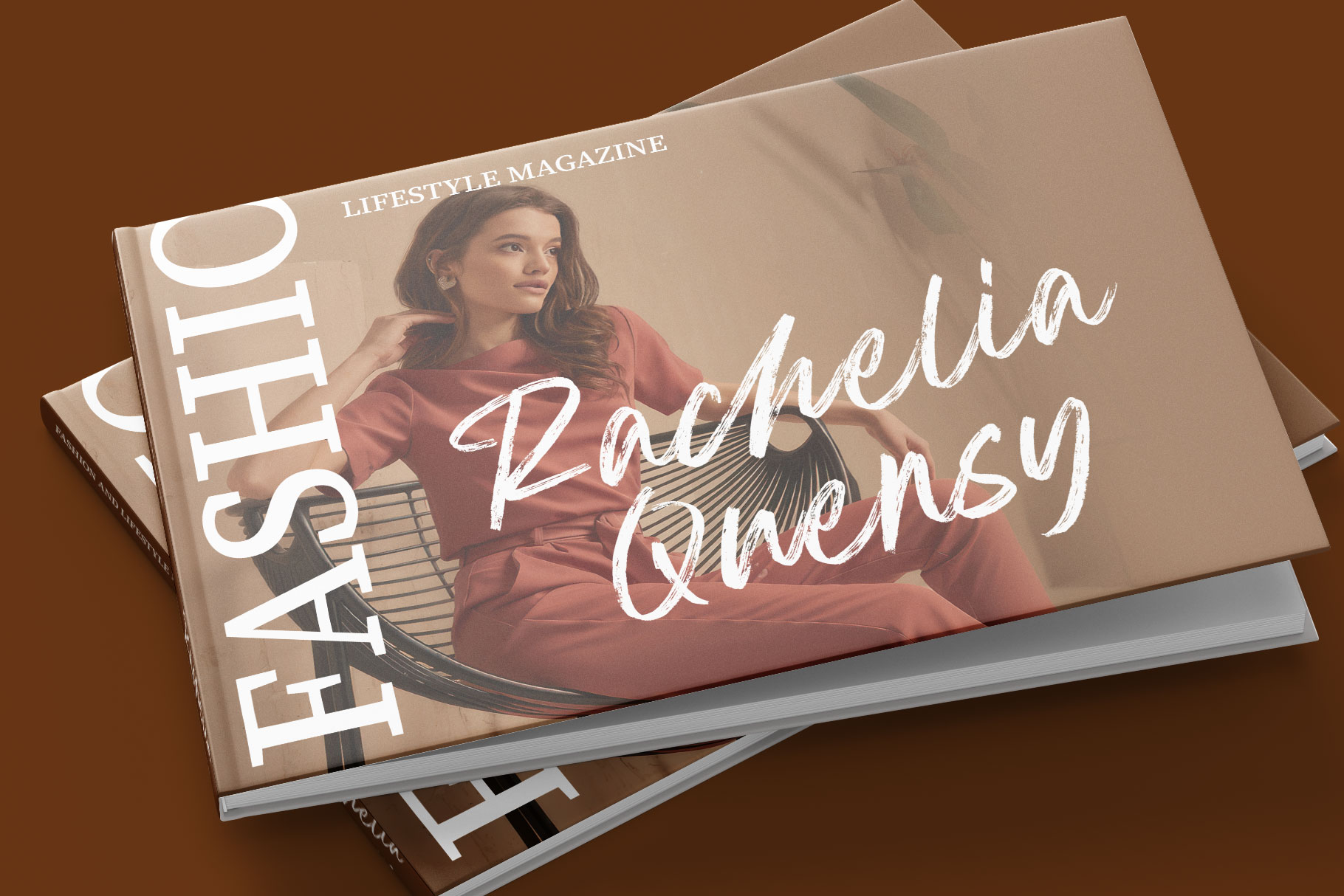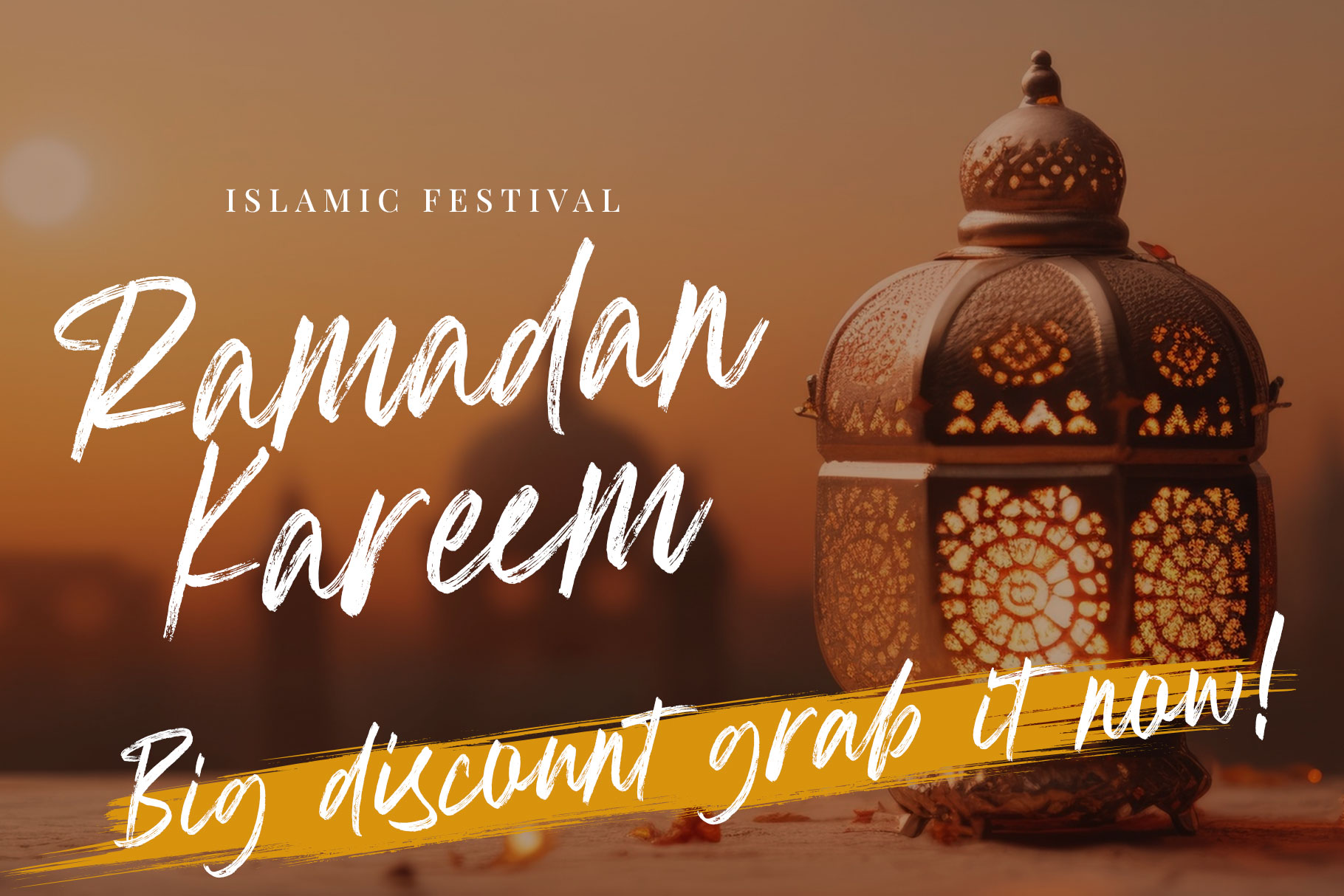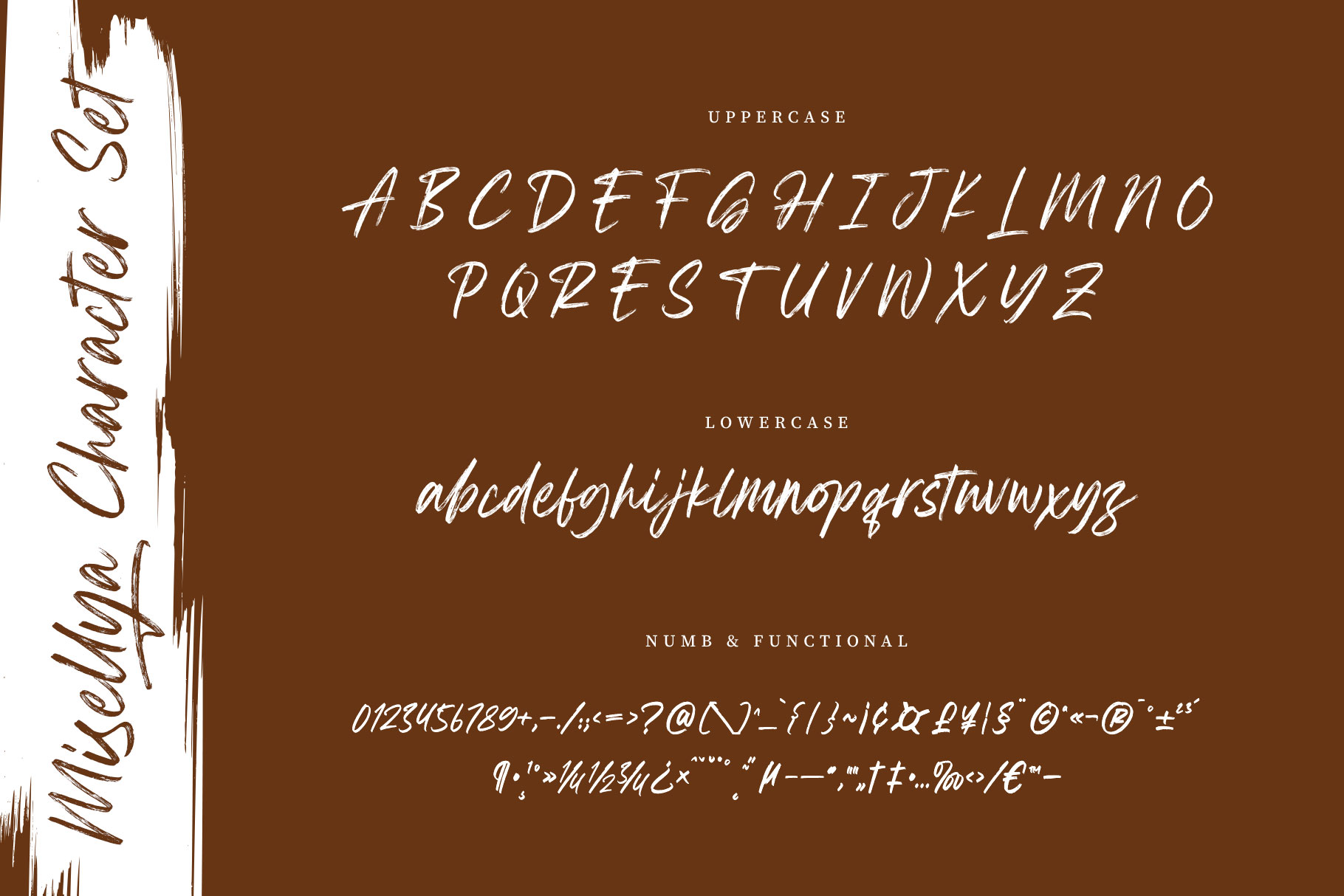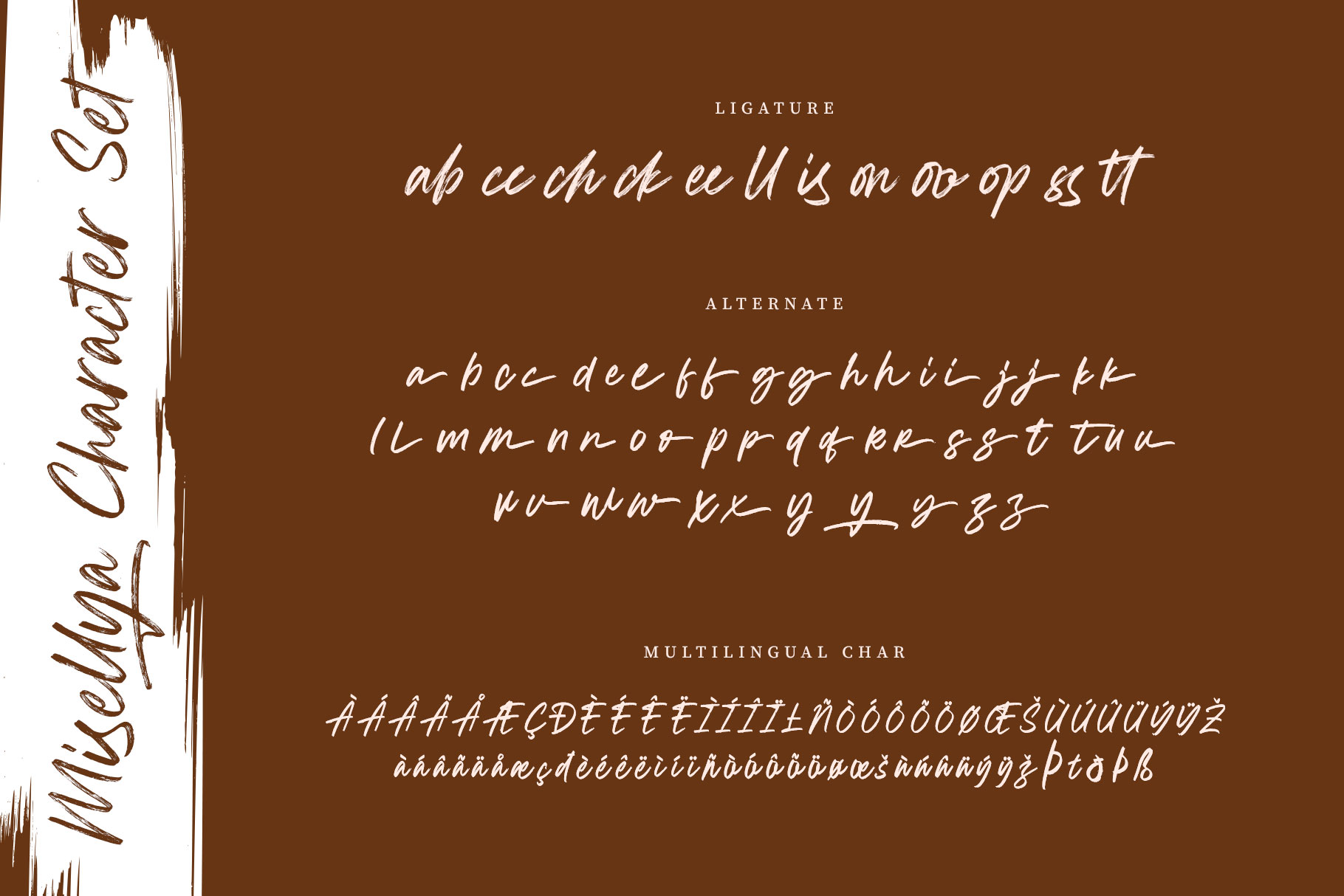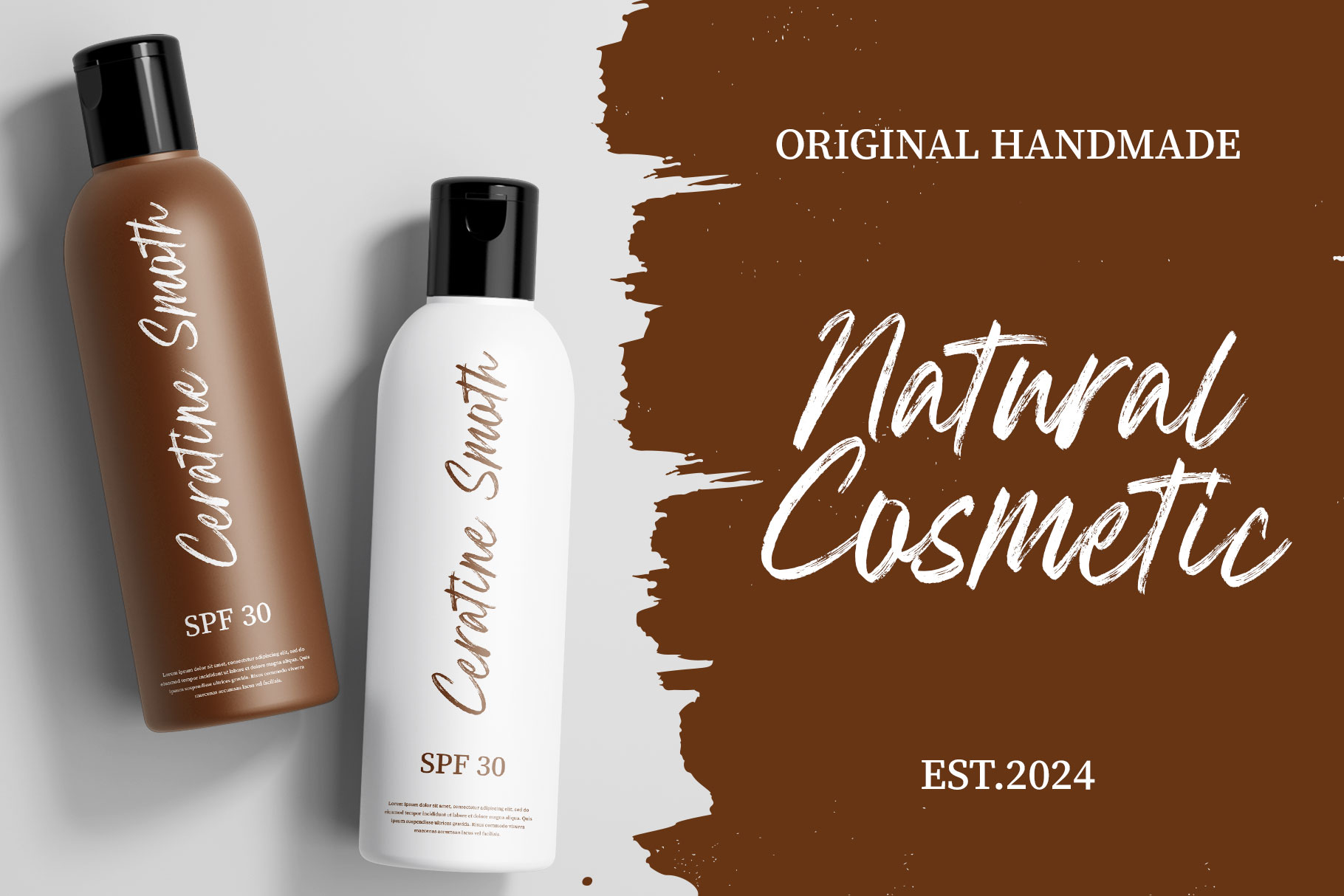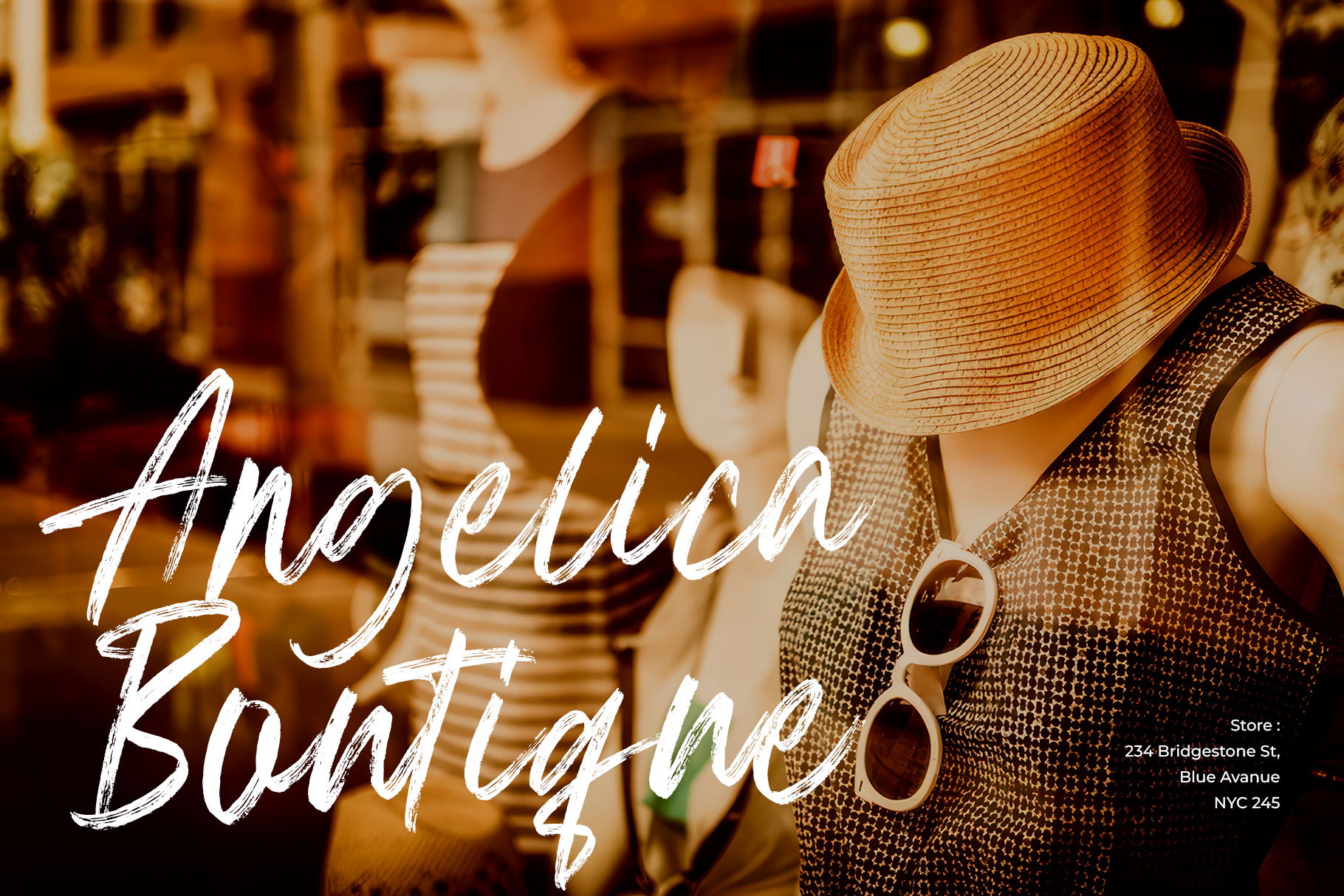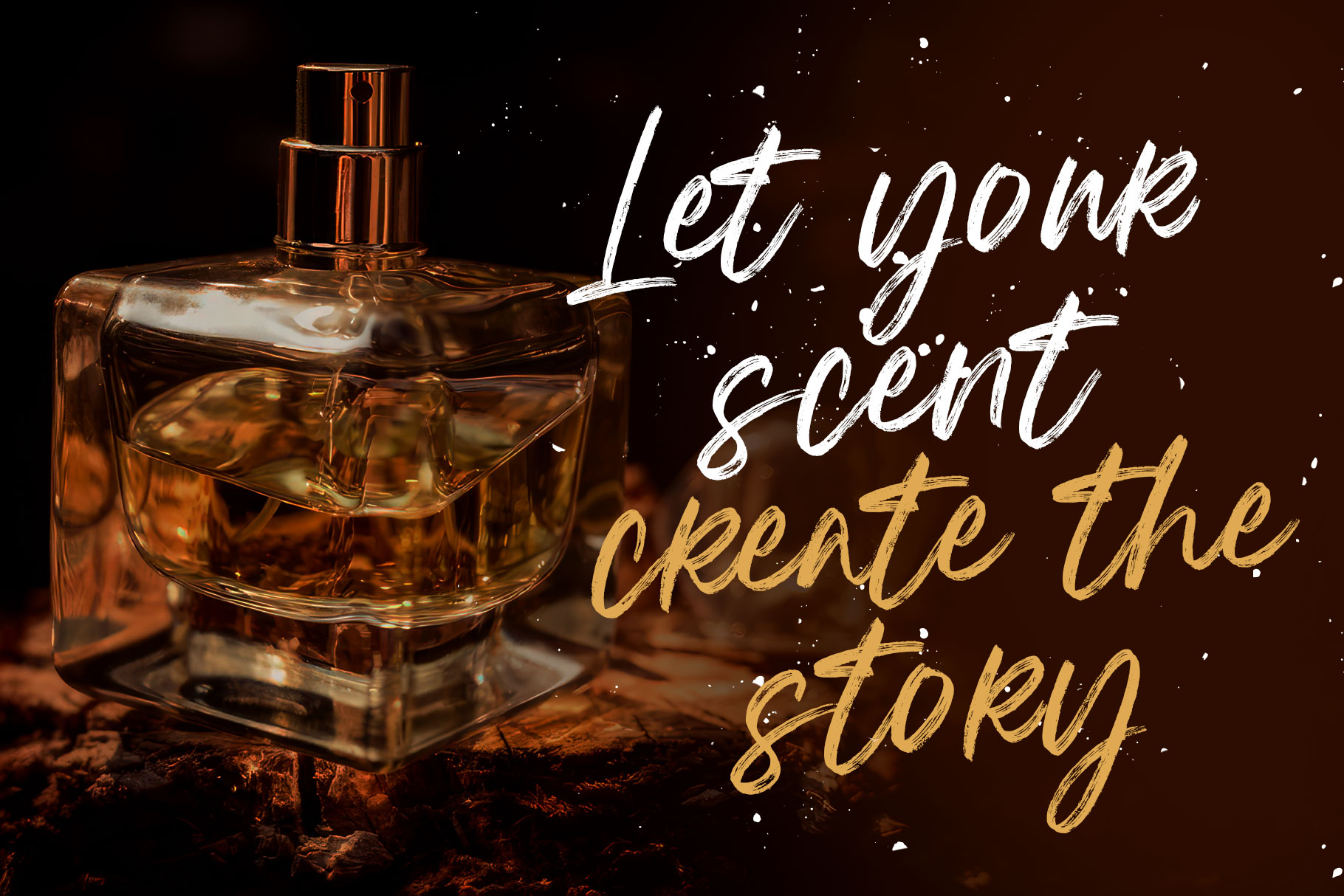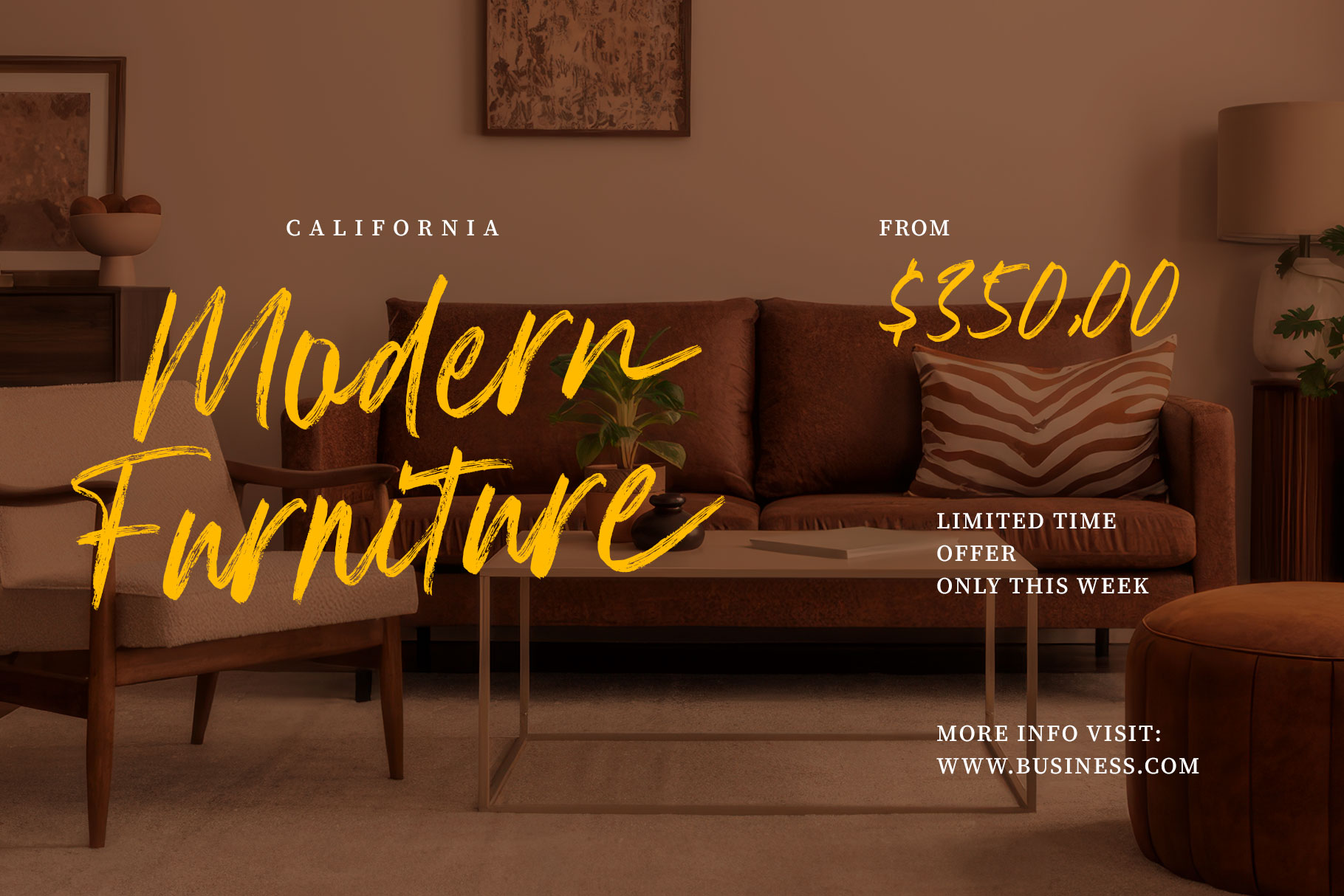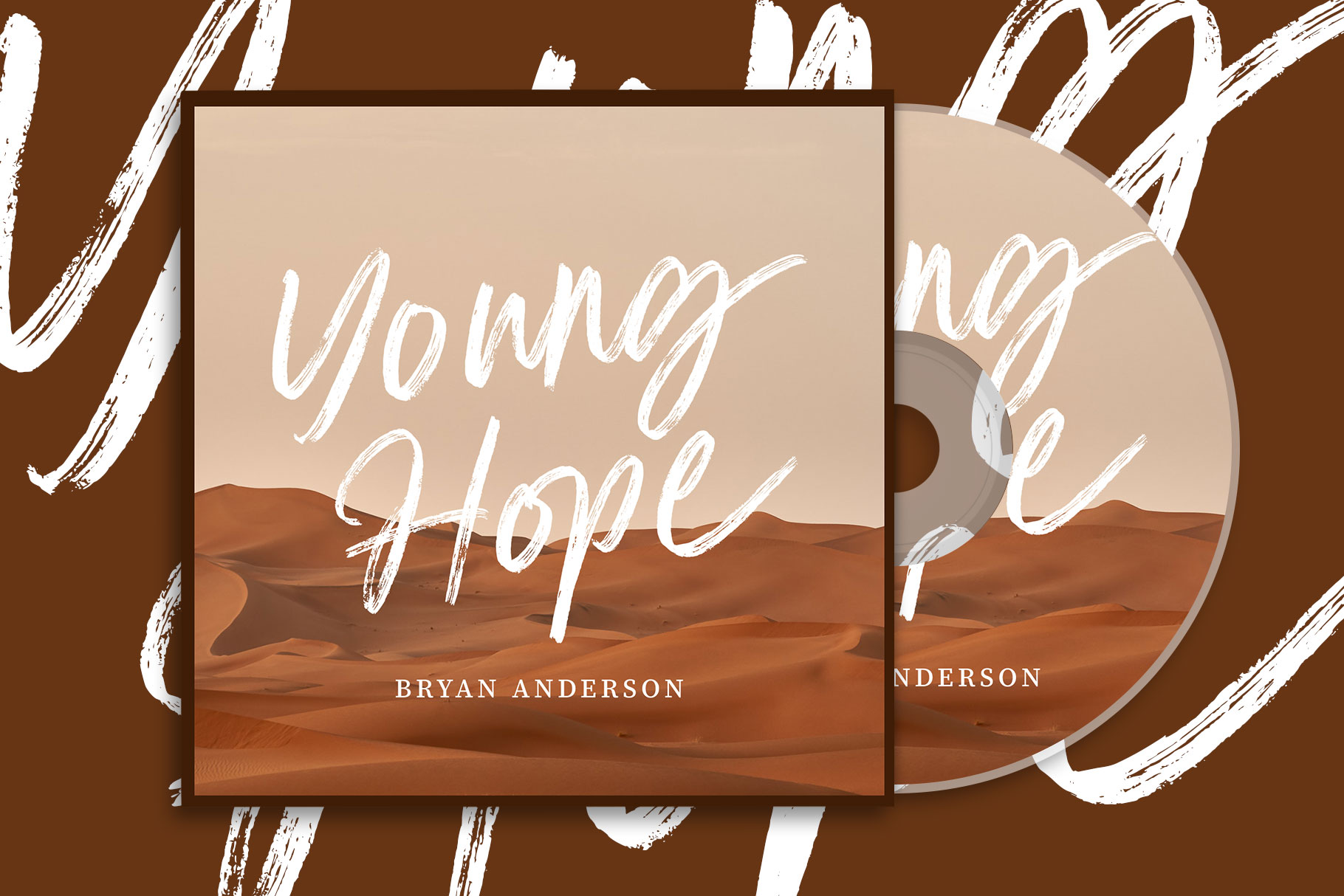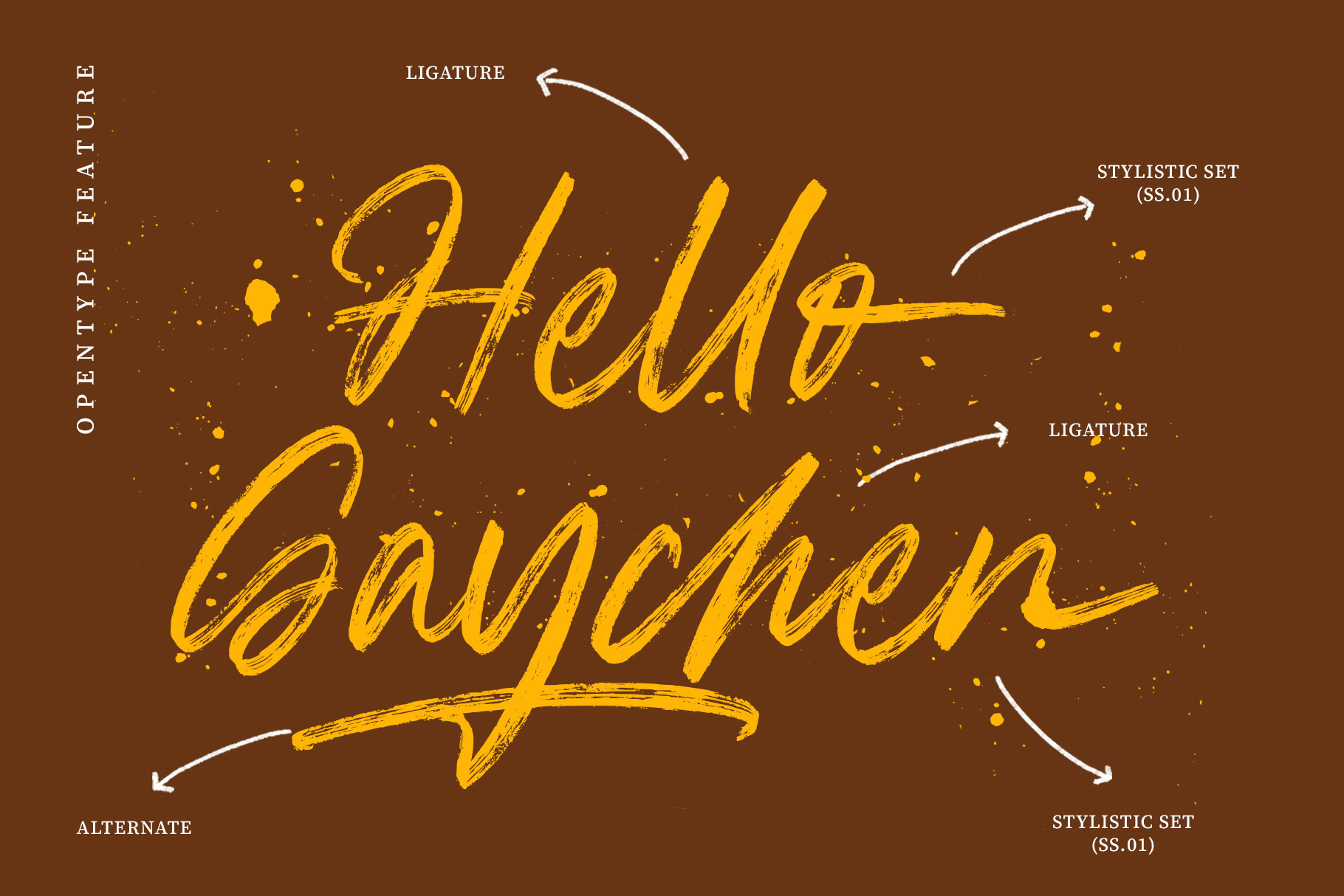
Misellya Brush Script Font
Misellya is brush script font with a visible brush effect and natural scratches. Stylish brush stoke make this font eye catch and versatile.
Misellya is a perfect choice for any creative endeavor, chic, lifestyle design such as logos, advertisements, watermark on photography, stationery, branding project, display and magazine, invitation, corporate brand, product design, label, business project and many other project need handwriting taste.